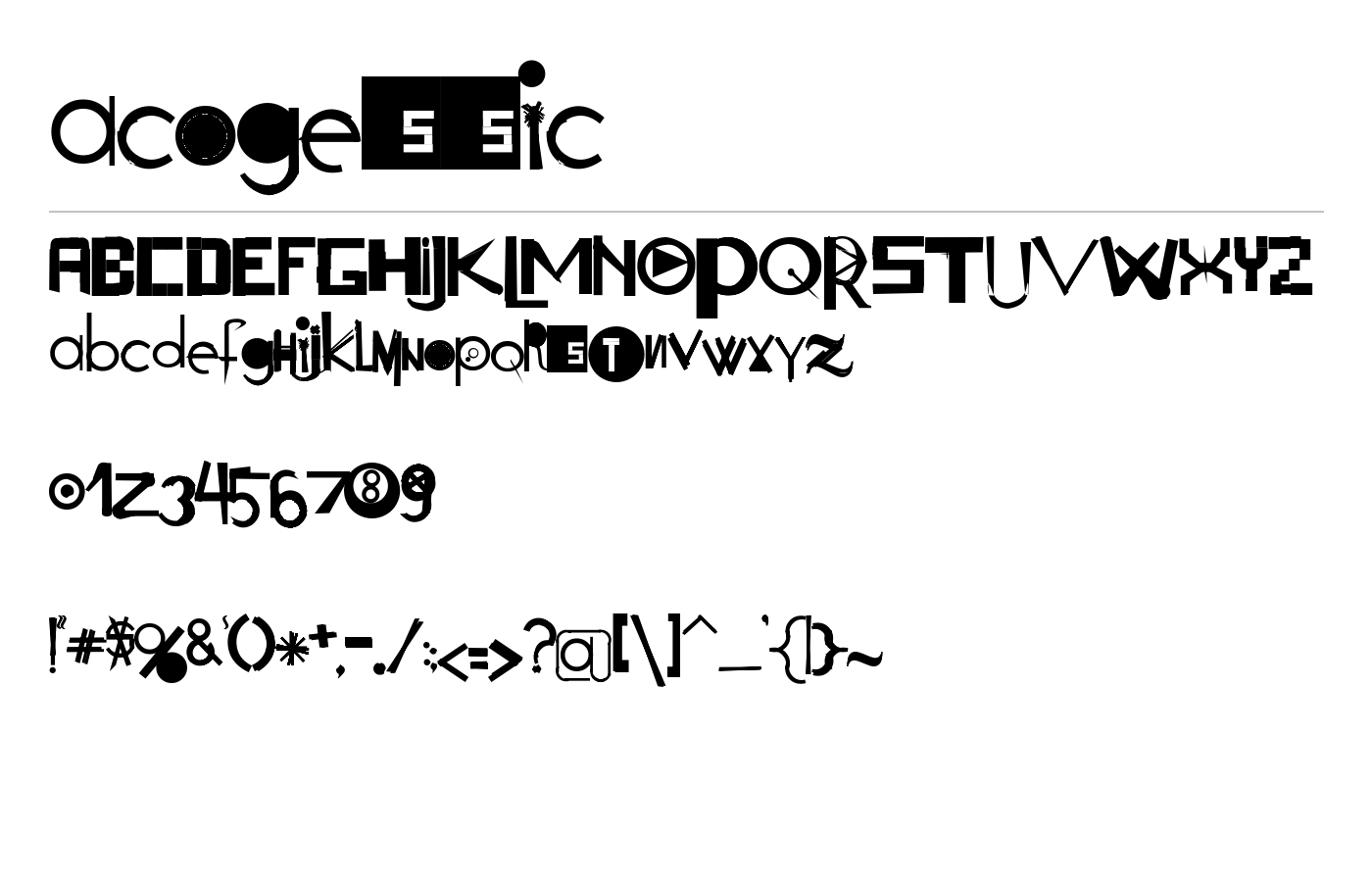
Acogessic is a highly experimental and eclectic sans-serif font with an artistic, almost chaotic personality. Its heavy weight, irregular shapes, and unusual details create a striking, edgy style that works best for bold, creative projects like posters, avant-garde branding, or artistic headlines where uniqueness and visual impact are key. This font’s eccentric charm makes it a standout choice when you want to convey innovation and disrupt conventional design norms.
acogessic Font
About acogessic Font
| Font family | acogessic Font |
| Designer | Stefan Vanli |